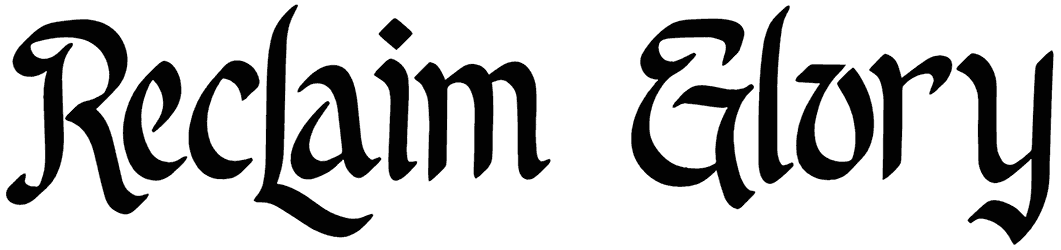
Reclaim Glory Font
Would you like to have a vintage style for your anticipated project? As a blackletter font with a hand-drawn and artistic face, Reclaim Glory would be an amazing choice. Give a royal vibe to your creative designs, such a…
Would you like to have a vintage style for your anticipated project? As a blackletter font with a hand-drawn and artistic face, Reclaim Glory would be an amazing choice. Give a royal vibe to your creative designs, such as flyers, books, illustrations, or a lot more other the like. Although there is no punctuation, Reclaim Glory can work admirably and show off an original design.
Reclaim Glory is a cool, gothic and imposing blackletter font.